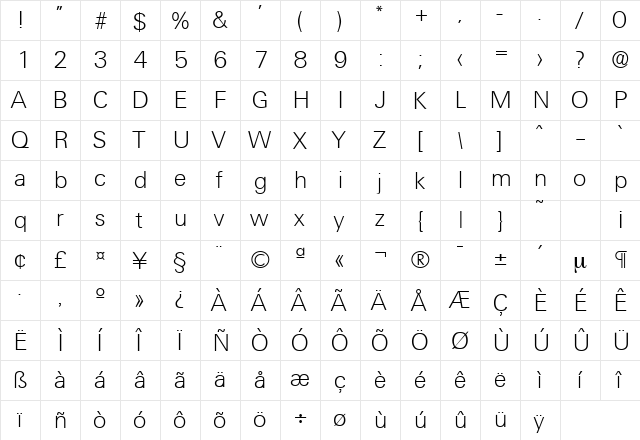
Ultimate-Serial-ExtraLight Regular
Design Context for Ultimate-Serial-ExtraLight Typeface
Ultimate-Serial-ExtraLight takes a measured approach to typography — its balanced proportions and neutral character make it a reliable workhorse for both digital and print work. The delicate stroke weight brings airiness and refinement to layouts.
Pro Tip: Use Ultimate-Serial-ExtraLight in both headline and body roles to test its range before committing to a single application.